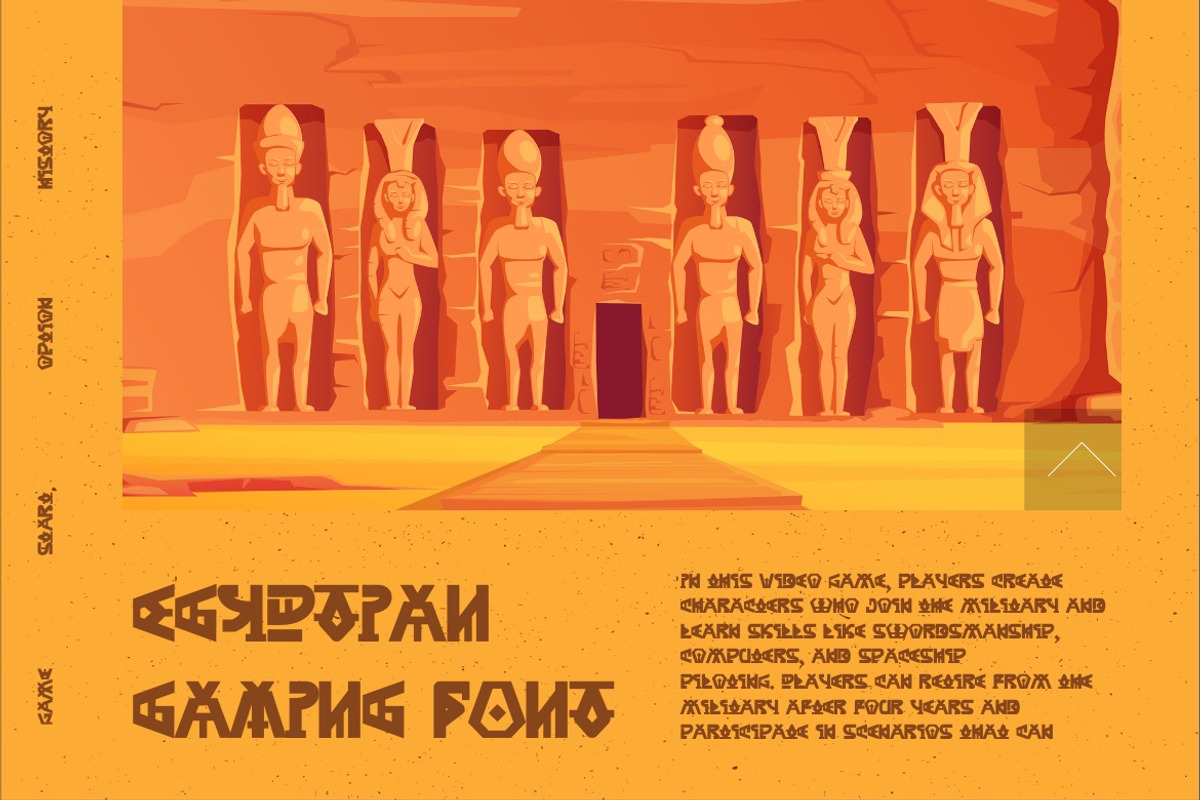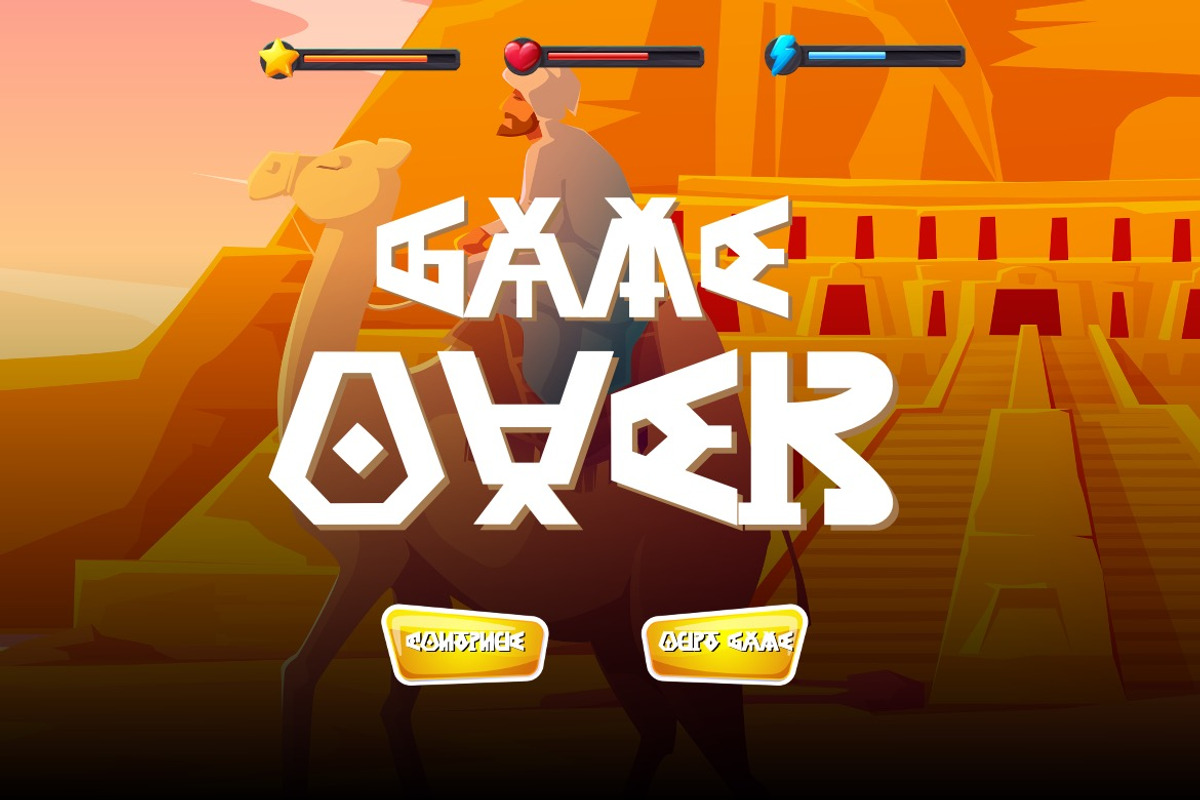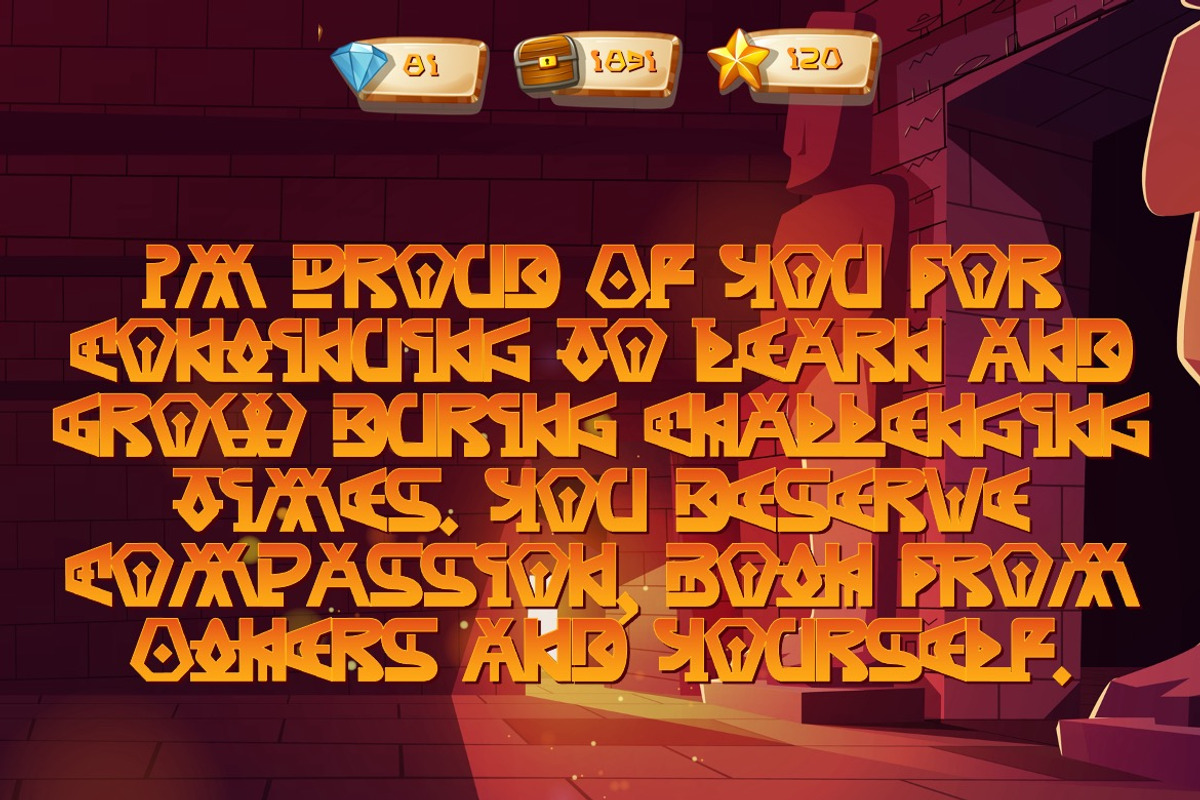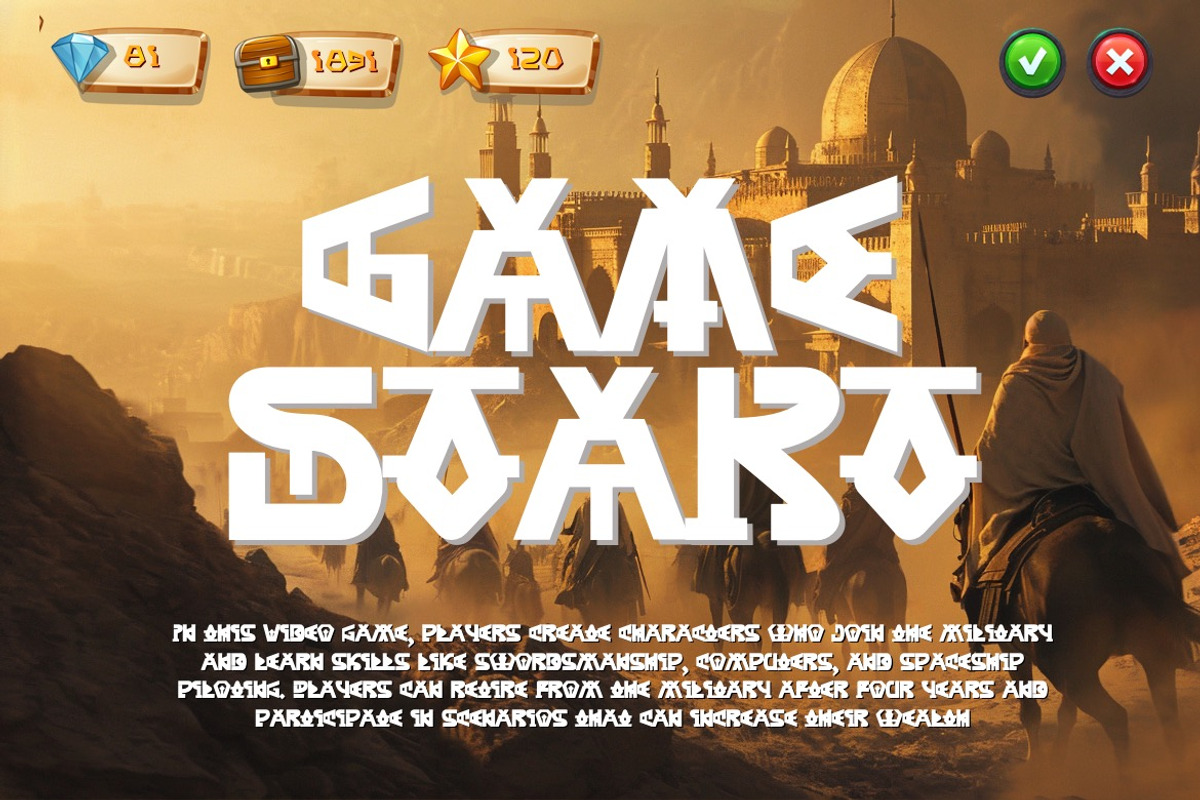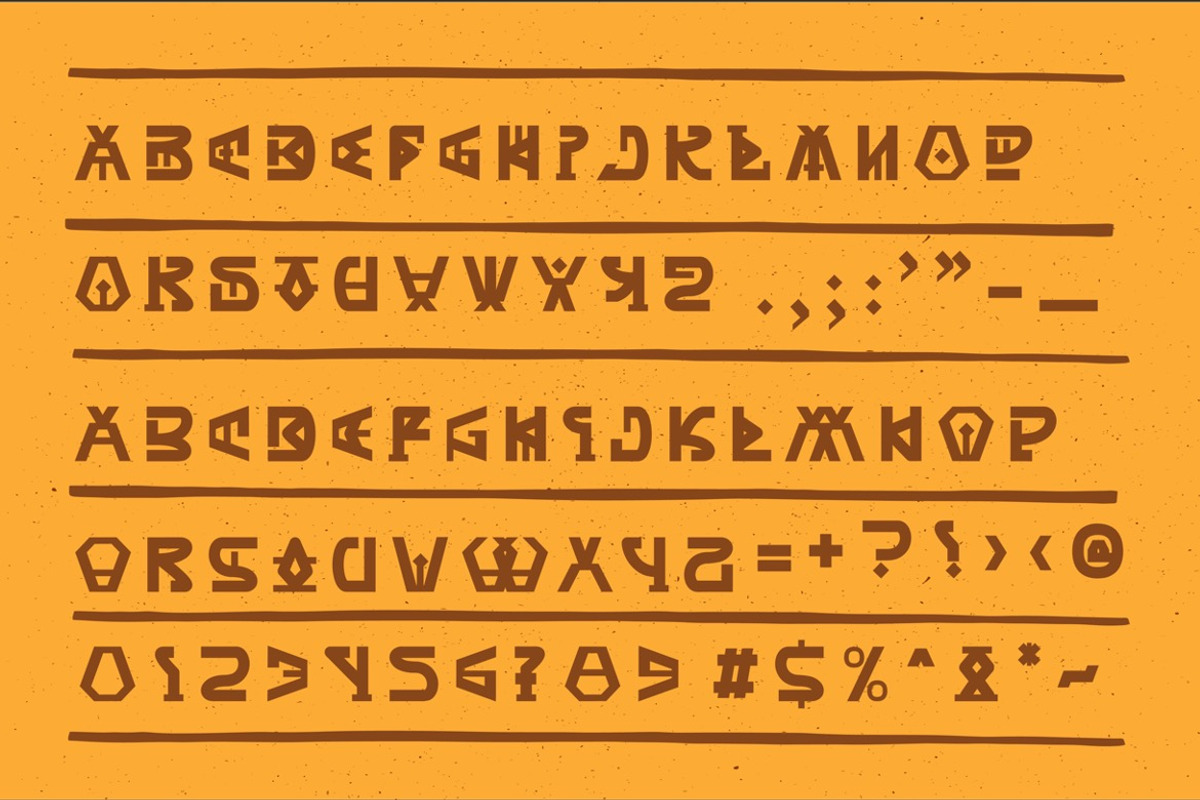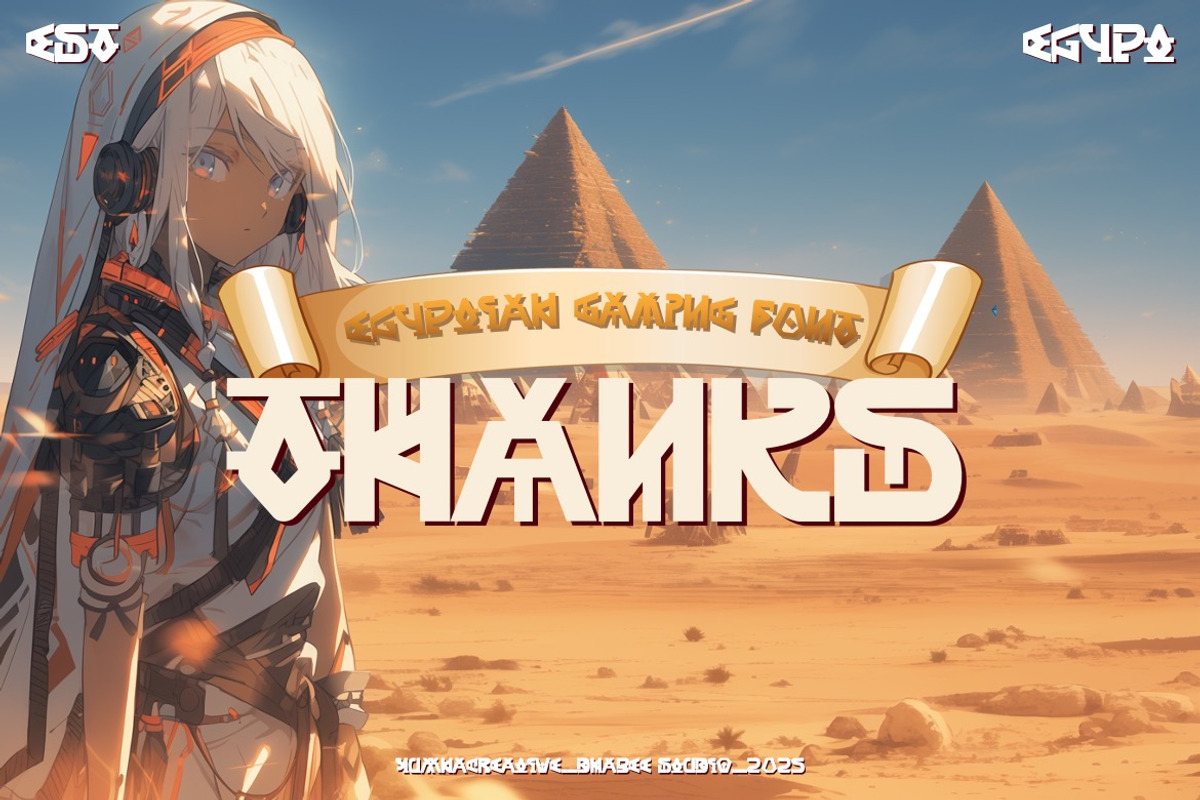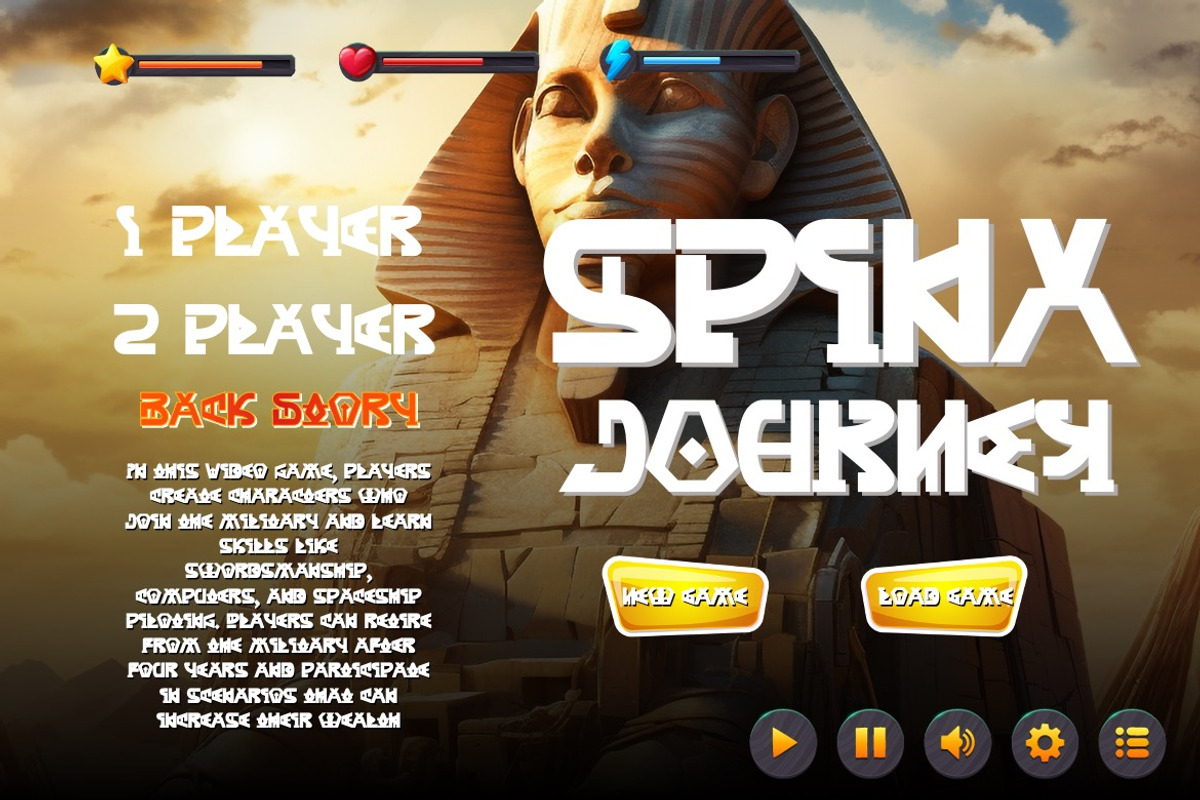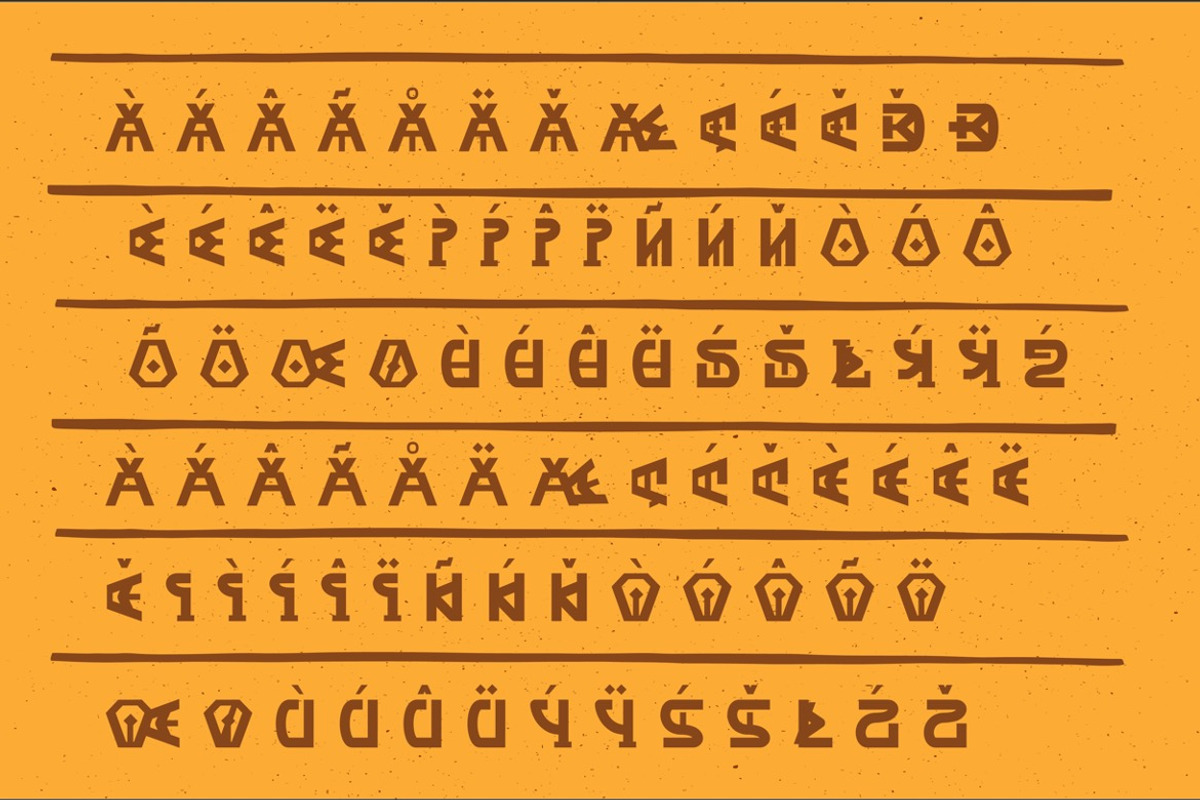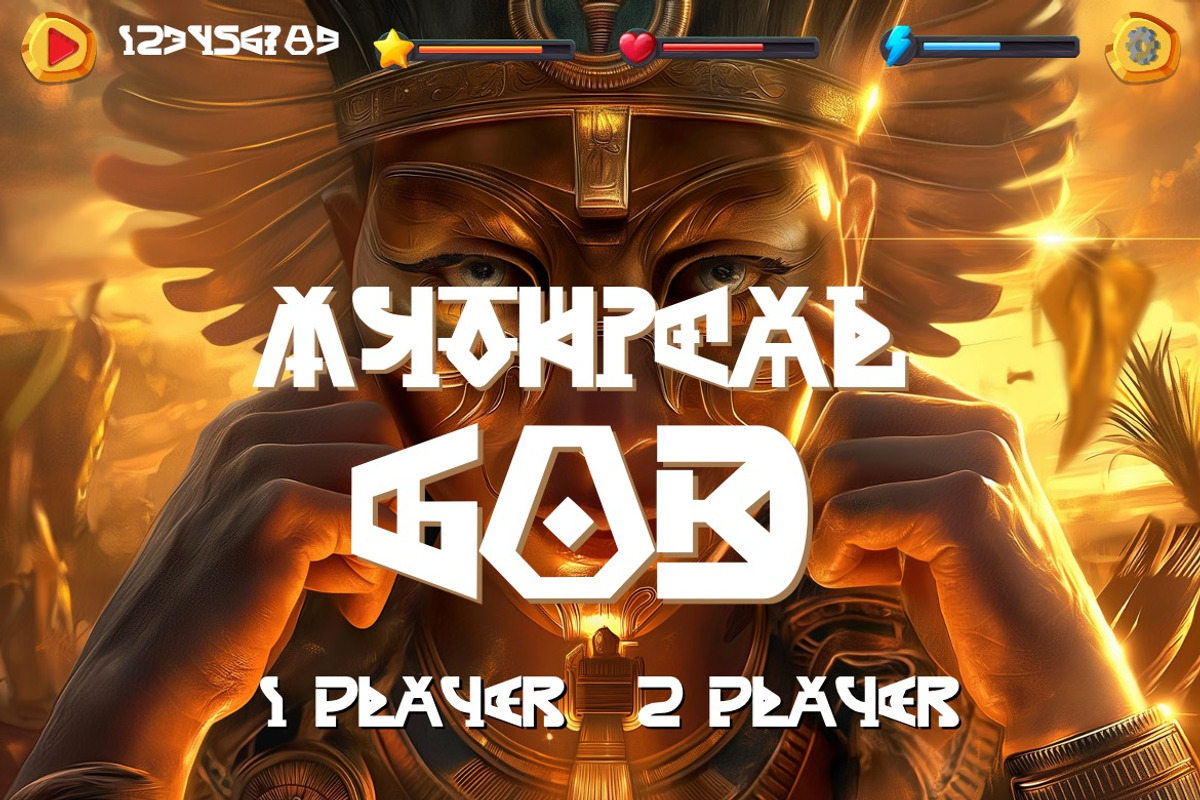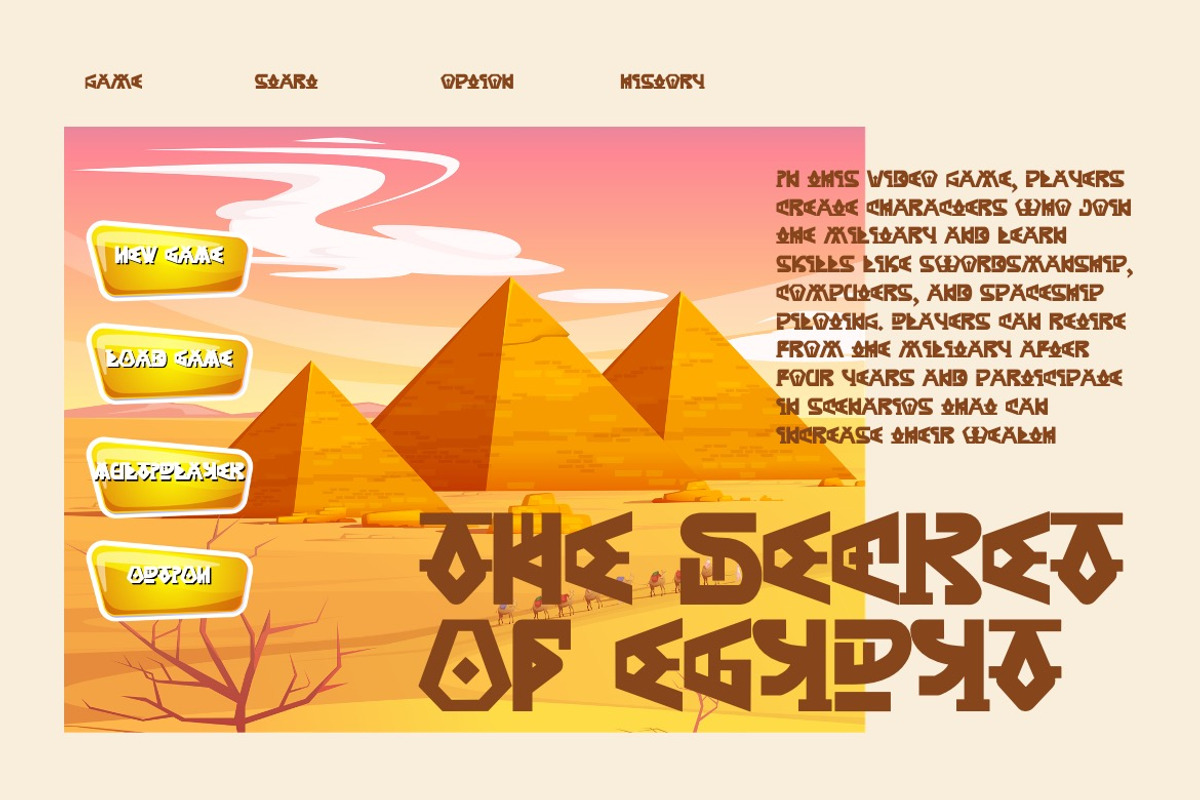
Axubies - Egyptian Gaming Font
Introducing Axubies - Egyptian Gaming Font
Axubies – Egyptian isn’t just a font it’s a portal to a world of ancient wonder. It’s your key to crafting designs that transport viewers to the heart of Egypt’s storied past, where the sands whisper secrets and hieroglyphs tell tales. Elevate your projects, captivate your audience, and embrace Axubies – Egyptian Font that’s rewriting the rules of design history.